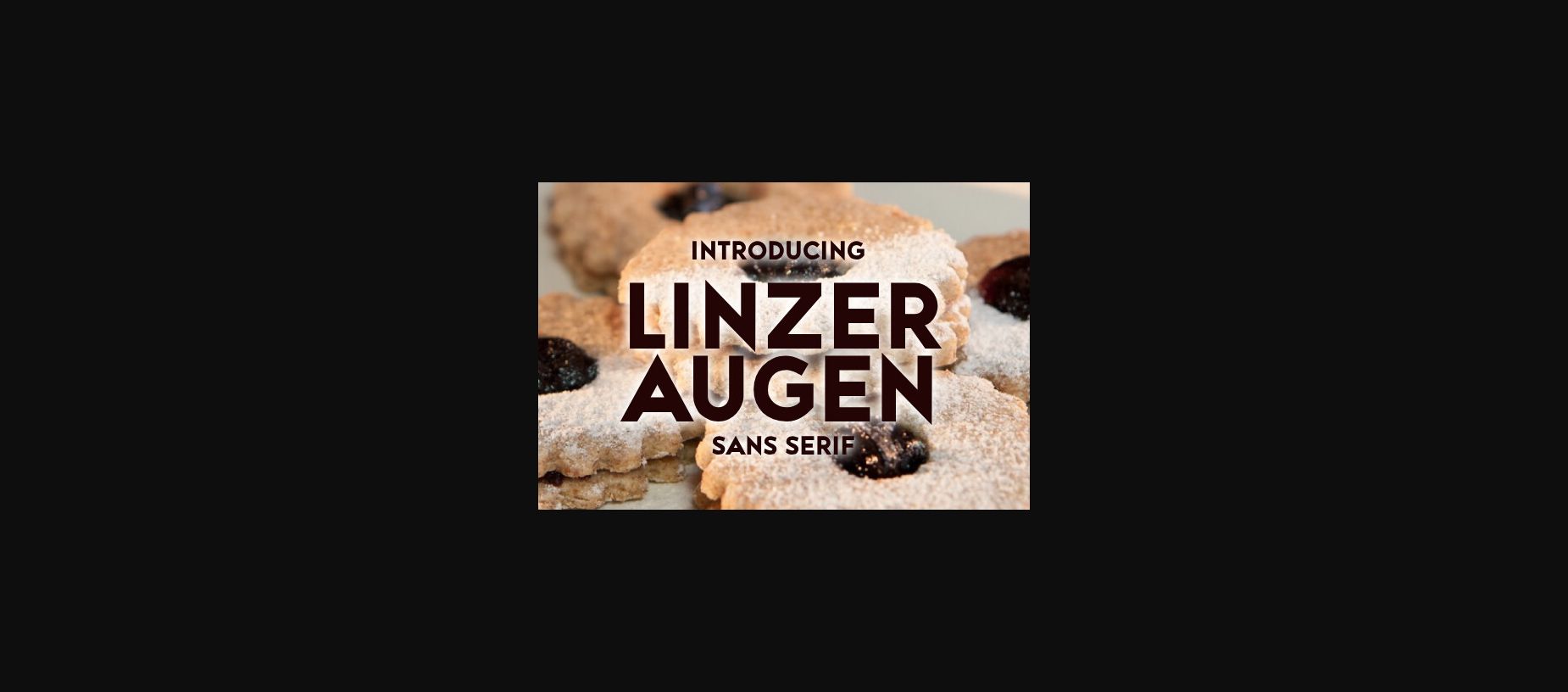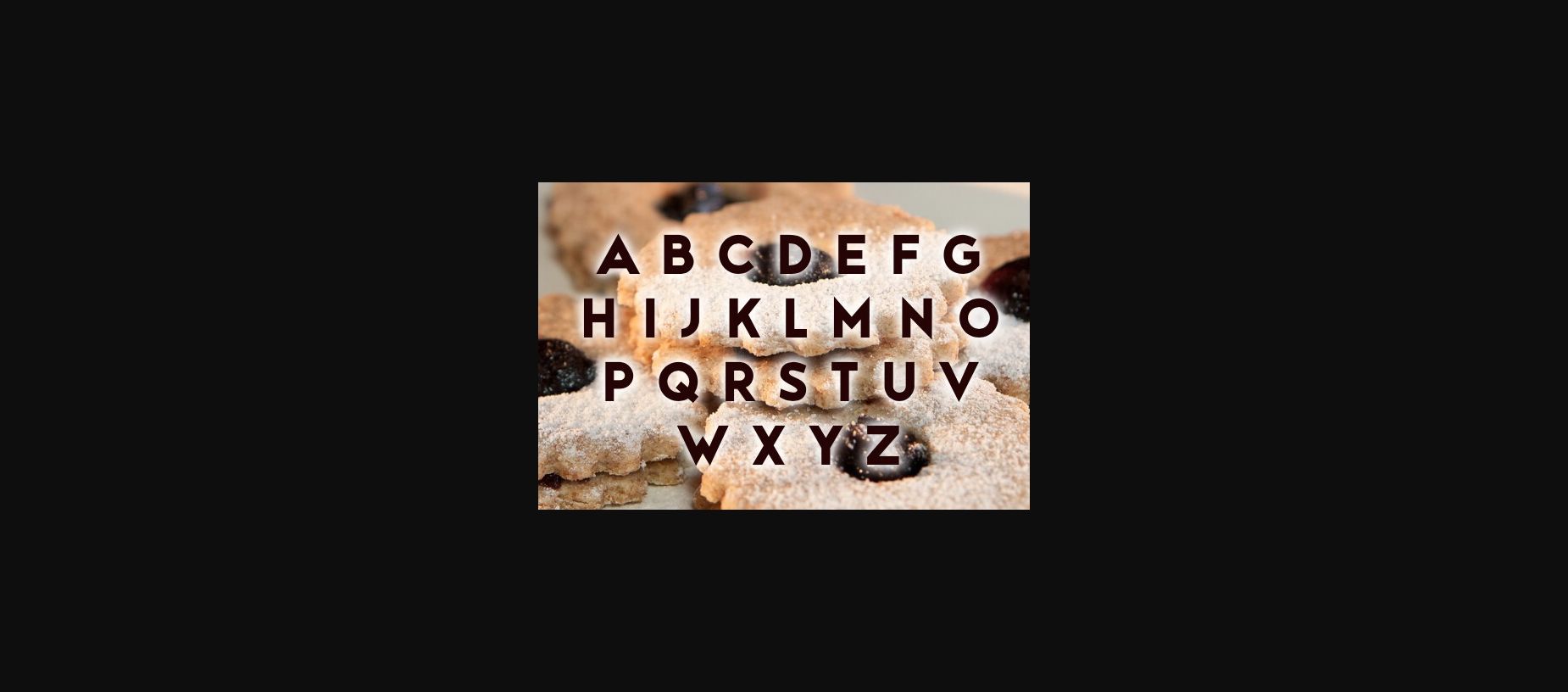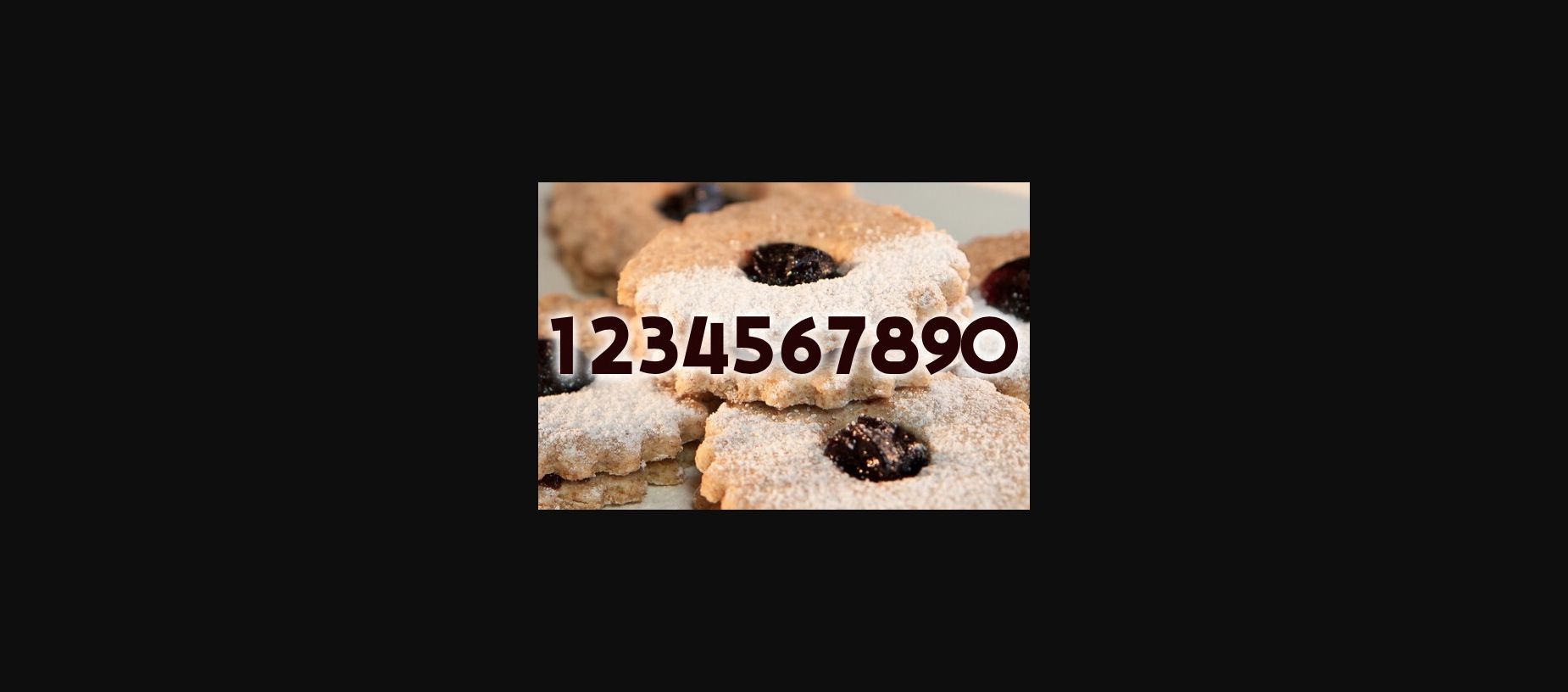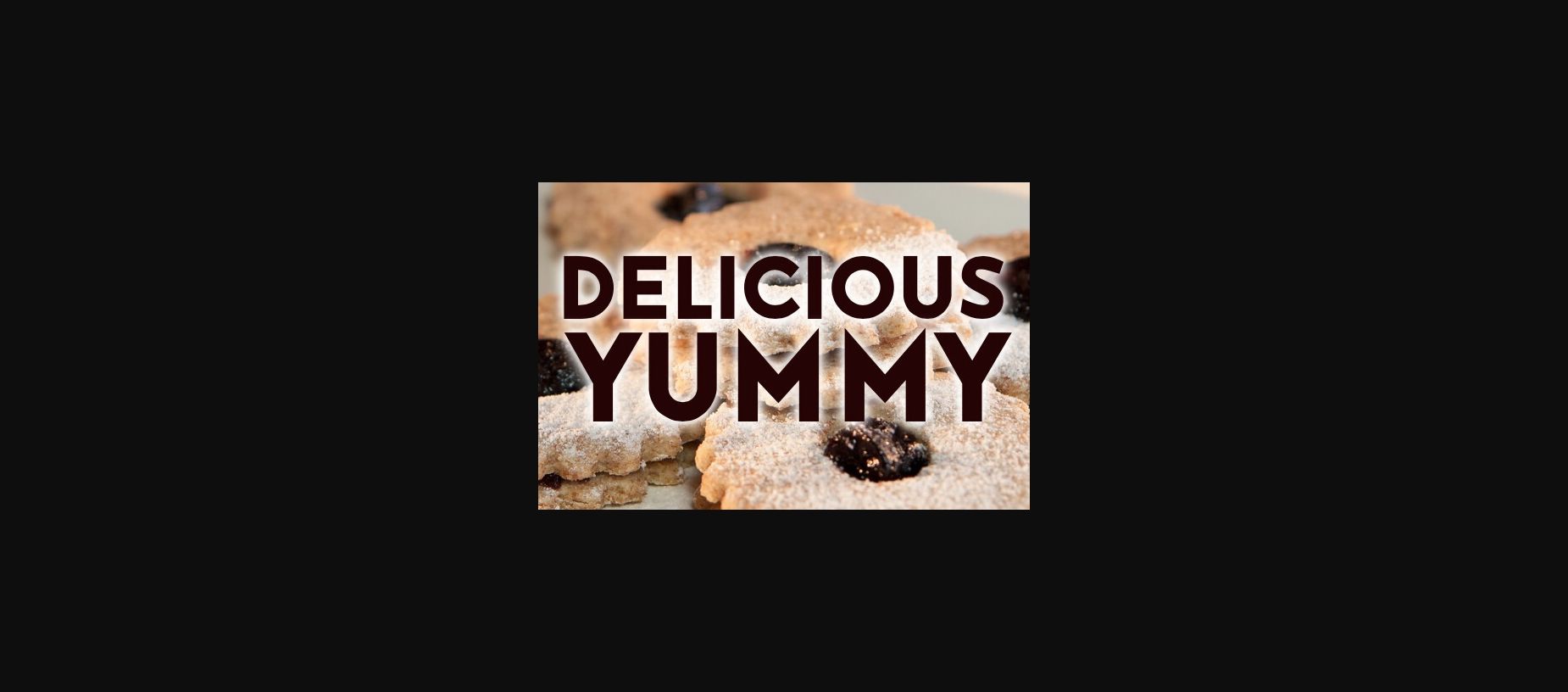
About Linzer Augen Font
Linzer Augen is a bold and assertive sans serif font. No matter the topic, this font will be an incredible asset to your fonts’ library, as it has the potential to elevate any
creation.